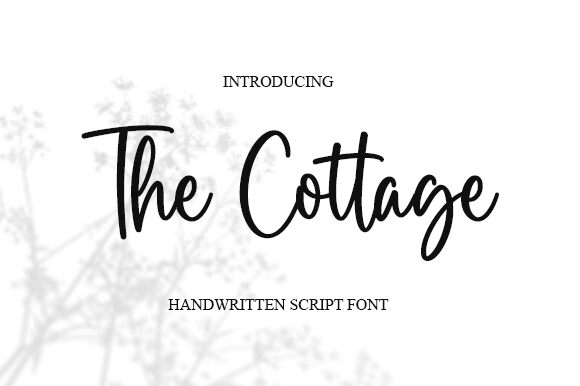
The Cottage
The Cottage, from Graphix Line Studio, is a handwritten font that exudes charm and elegance. With its semi-light weight and graceful flow, this font brings a personal touch to every design it graces. Perfectly balanced characters lend themselves to an array of creative projects—from wedding invitations to branding materials—ensuring your work stands out with a bespoke feel.
The Cottage's versatility makes it an indispensable asset for designers seeking a touch of warmth and authenticity in their typography palette. Whether it's for print or digital, let The Cottage infuse your next project with its unique handwritten allure.